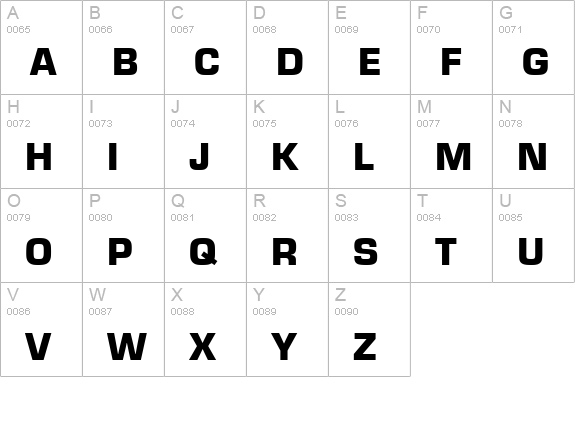
EurostileTBla is a modern and stylish font characterized by its geometric shapes and bold, futuristic appearance. This versatile typeface is perfect for a wide range of design projects, from branding and advertising to packaging and editorial layouts. With its clean lines and distinctive letterforms, EurostileTBla exudes a sense of sophistication and professionalism. The best part is that EurostileTBla is completely free to download at FontsMarket.com. Whether you're a designer looking to add a contemporary edge to your work or a business owner seeking a sleek and polished font for your branding, EurostileTBla is sure to impress. Don't miss out on the opportunity to enhance your projects with this eye-catching and impactful typeface. Download EurostileTBla today and elevate your designs to the next level.